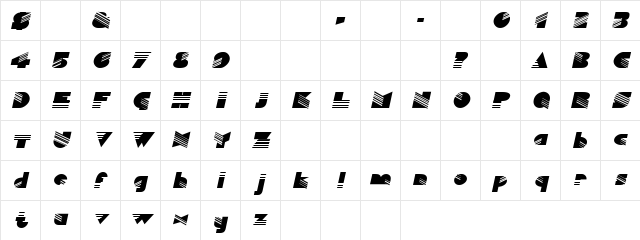
Hesitate Oblique Free Font
Hesitate Oblique
Design Context for Hesitate
Hesitate is a composed and adaptable typeface that performs quietly and consistently across a wide range of design contexts. The slanted form adds forward momentum and visual energy.
Pro Tip: Use Hesitate for emphasis, pull quotes, and subheadings where its slanted energy can add rhythm to the layout.